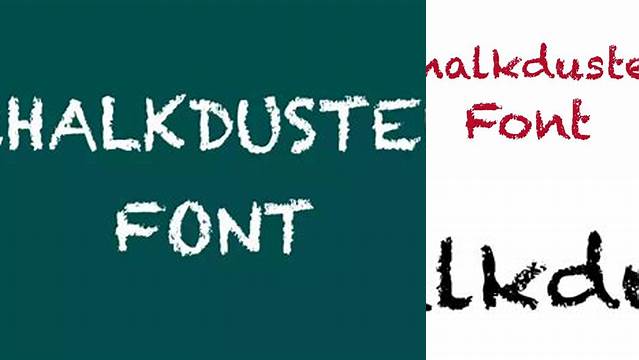
Chalkduster Font: Free Downloads & Creative Uses
Hey guys! Ever stumbled upon a font that just screams creativity and nostalgia? That's Chalkduster for you! This awesome font, with its unique handwritten style, is perfect for adding a touch of whimsy and fun to your projects. Whether you're designing a cool poster, creating engaging social media graphics, or just spicing up your personal documents, Chalkduster can be your go-to choice. Let’s dive into everything you need to know about Chalkduster, including where to find it for free and how to use it effectively.
1. What is Chalkduster Font?
So, what exactly is Chalkduster font? Imagine the classic chalkboard lettering you’d see in a classroom – that's the vibe Chalkduster gives off. It’s a display font designed to mimic the look of chalk on a blackboard. This makes it incredibly versatile for projects that need a personal, hand-drawn feel. Think about using it for invitations, posters, logos, and even website headers. The slightly imperfect, textured appearance adds a touch of authenticity that other fonts just can’t match. Plus, it’s super legible, which is always a bonus! When you’re looking to inject some personality into your designs, Chalkduster is definitely a font to consider. It brings a sense of nostalgia and playfulness, making it ideal for projects that aim to be both eye-catching and approachable. You'll find it works wonders in educational materials, children's books, and any project where you want to convey a sense of creativity and fun. The font's unique character makes it stand out, ensuring your message is delivered with a distinctive and memorable flair. Remember, choosing the right font can make all the difference in how your message is perceived, and Chalkduster is a fantastic option for those moments when you want to add a human touch to your digital creations.